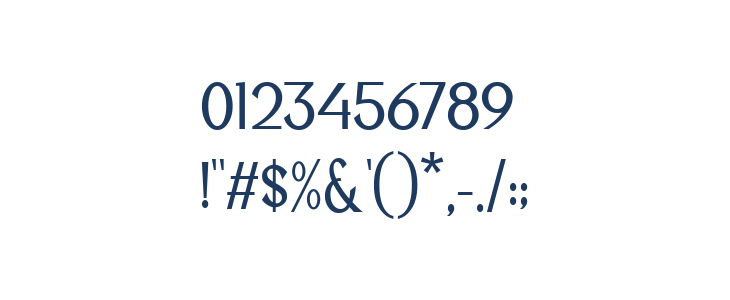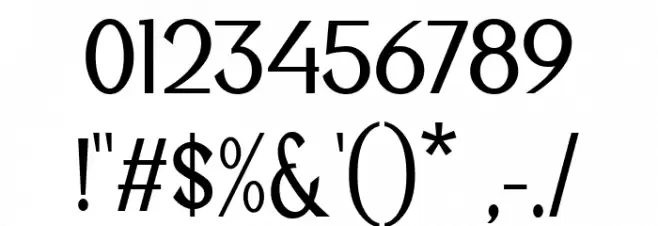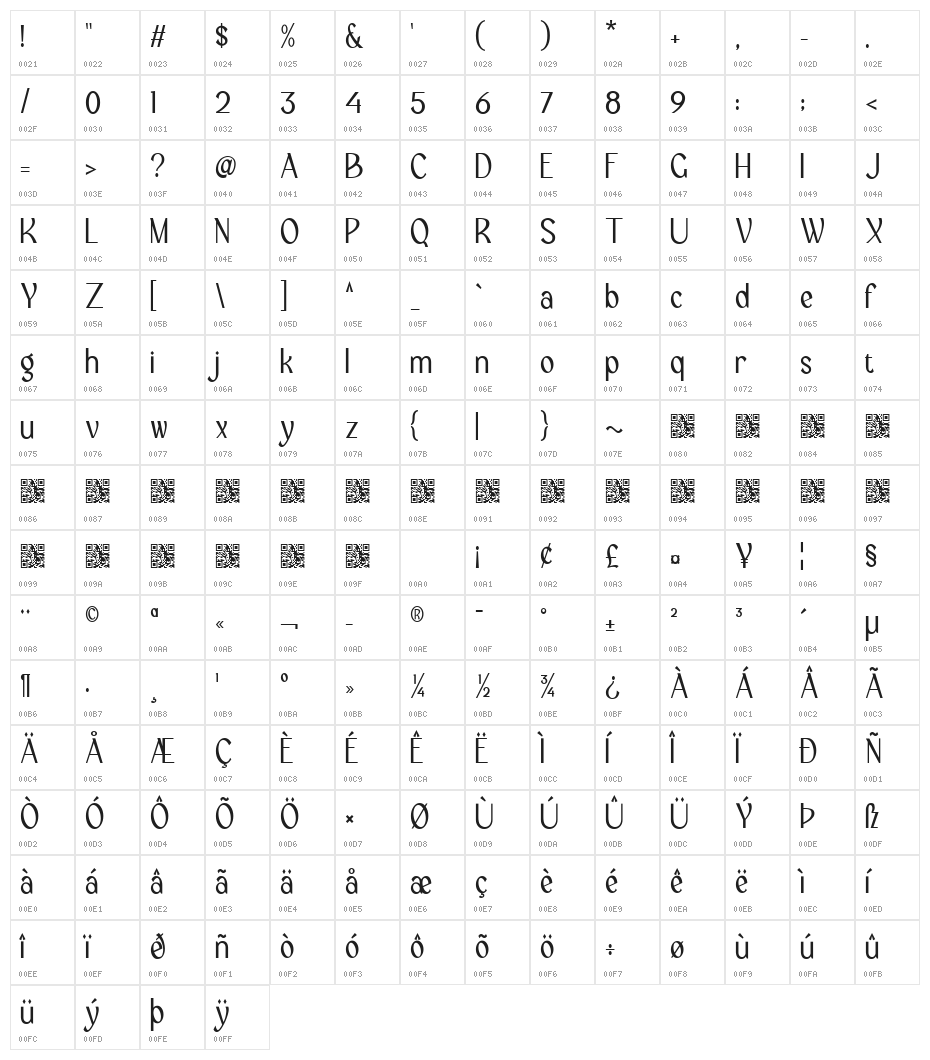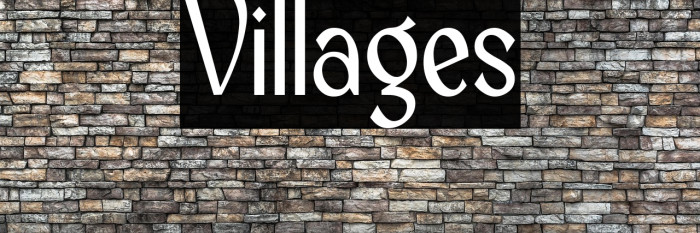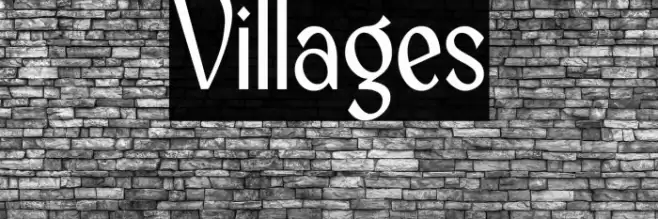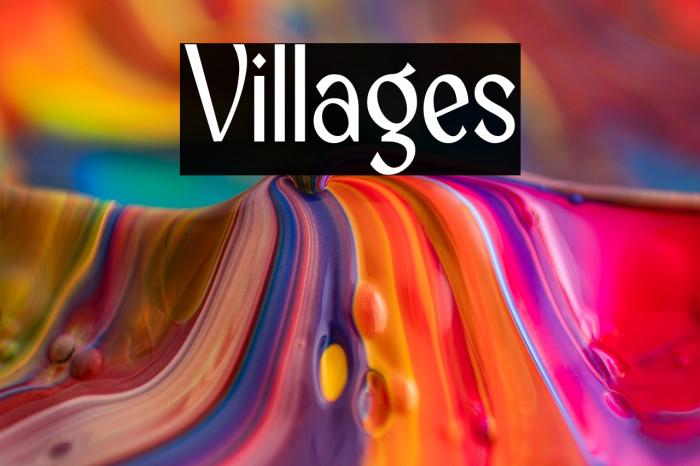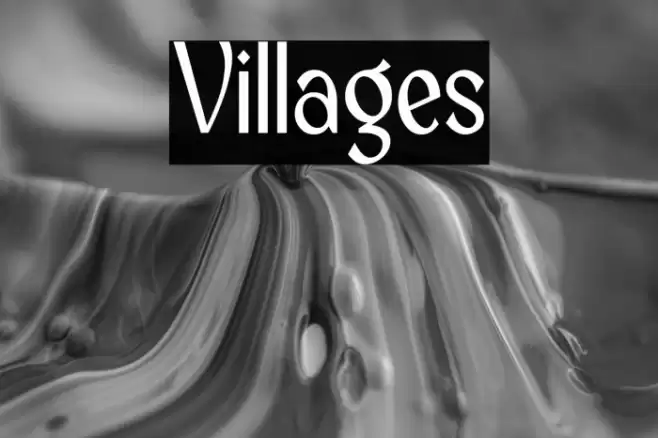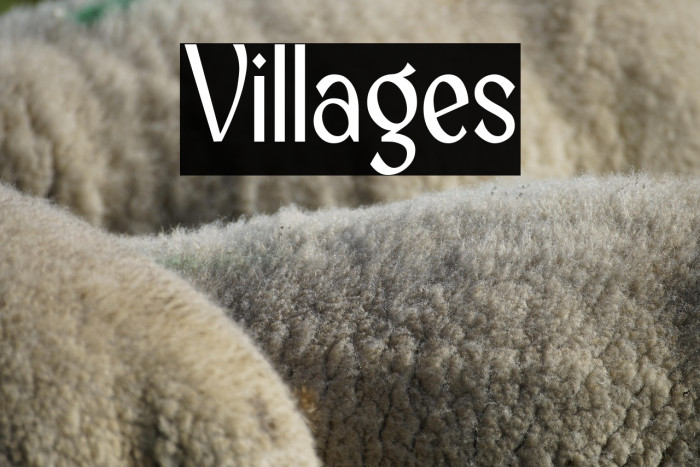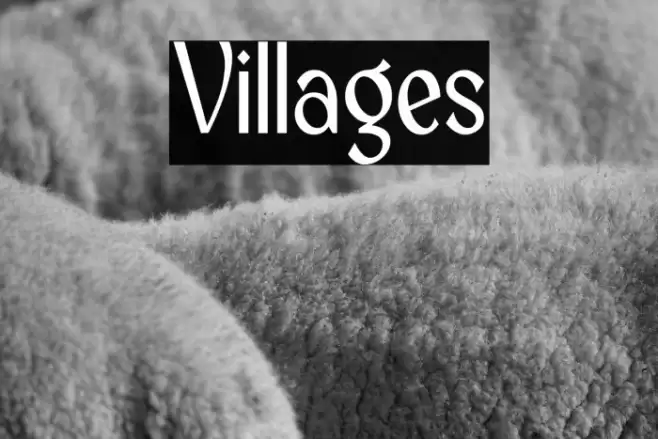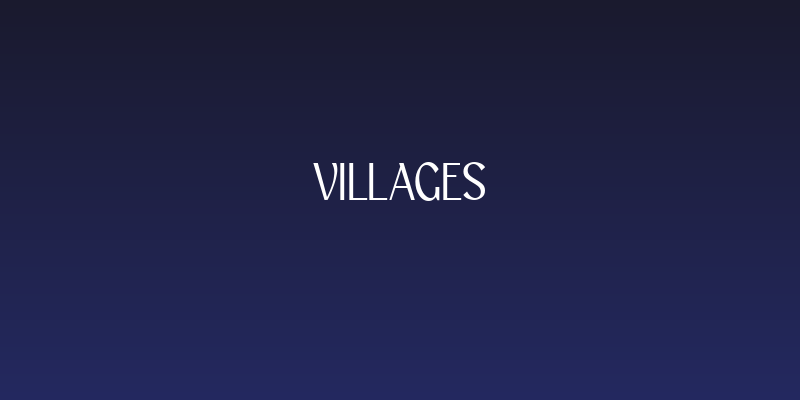
Villages Font
Villages Description
This font features a modern and elegant design with clean lines and a slightly condensed appearance. The uppercase letters are tall and narrow, giving a sophisticated look, while the lowercase letters maintain a consistent style with a touch of playfulness in their curves. The numerals are well-proportioned, ensuring readability. Special characters are designed with a unique flair, adding to the font's versatility. The overall style is contemporary, making it suitable for a variety of design projects.
| Proposed Projects | Ideal for branding, editorial design, advertising, and web design projects. |